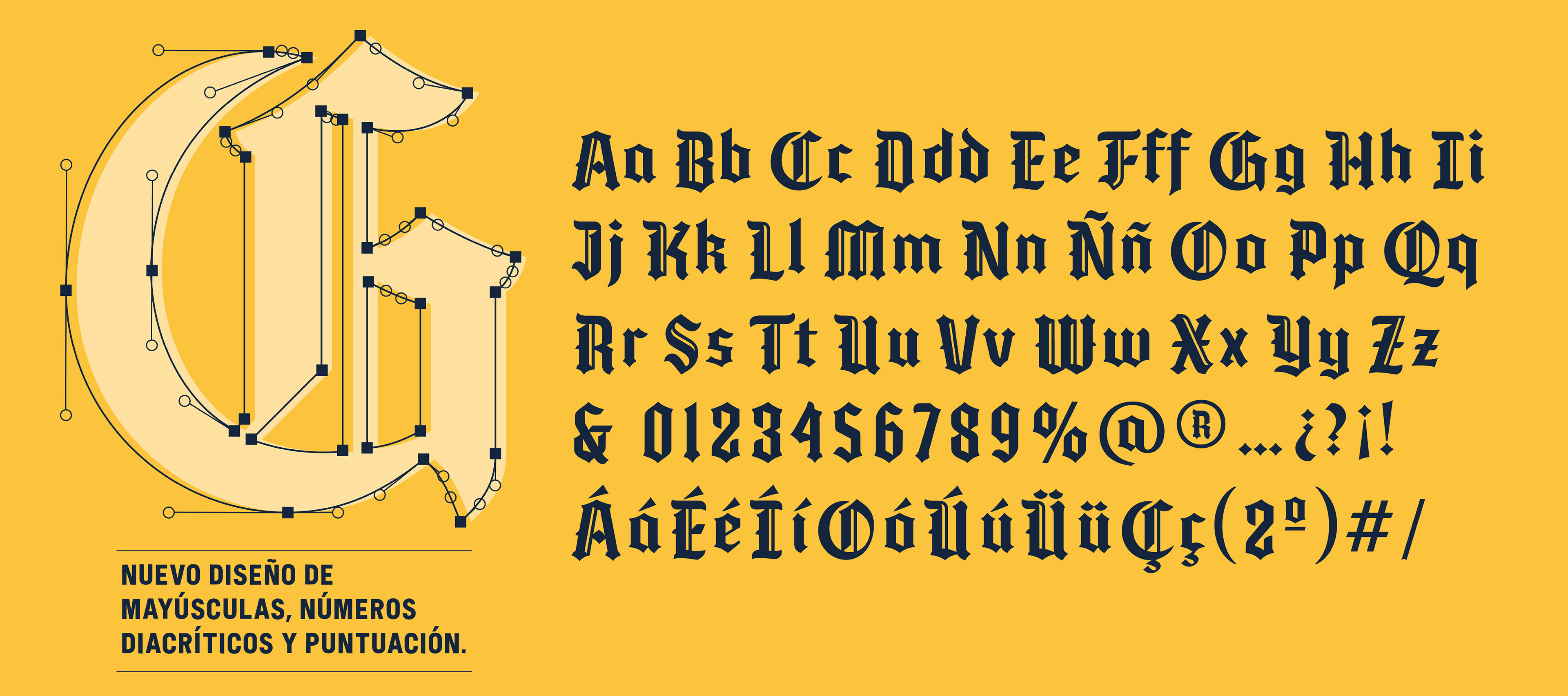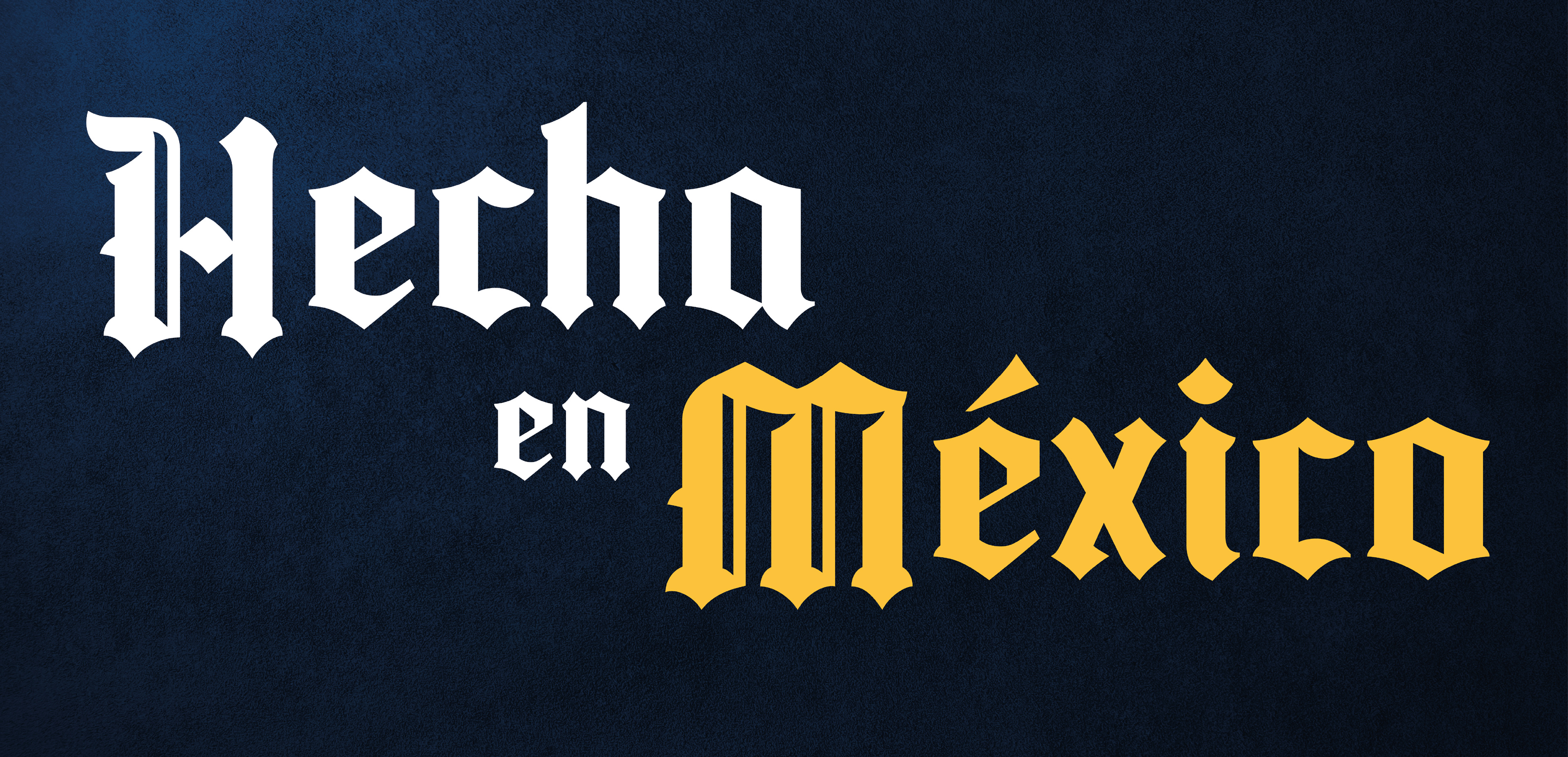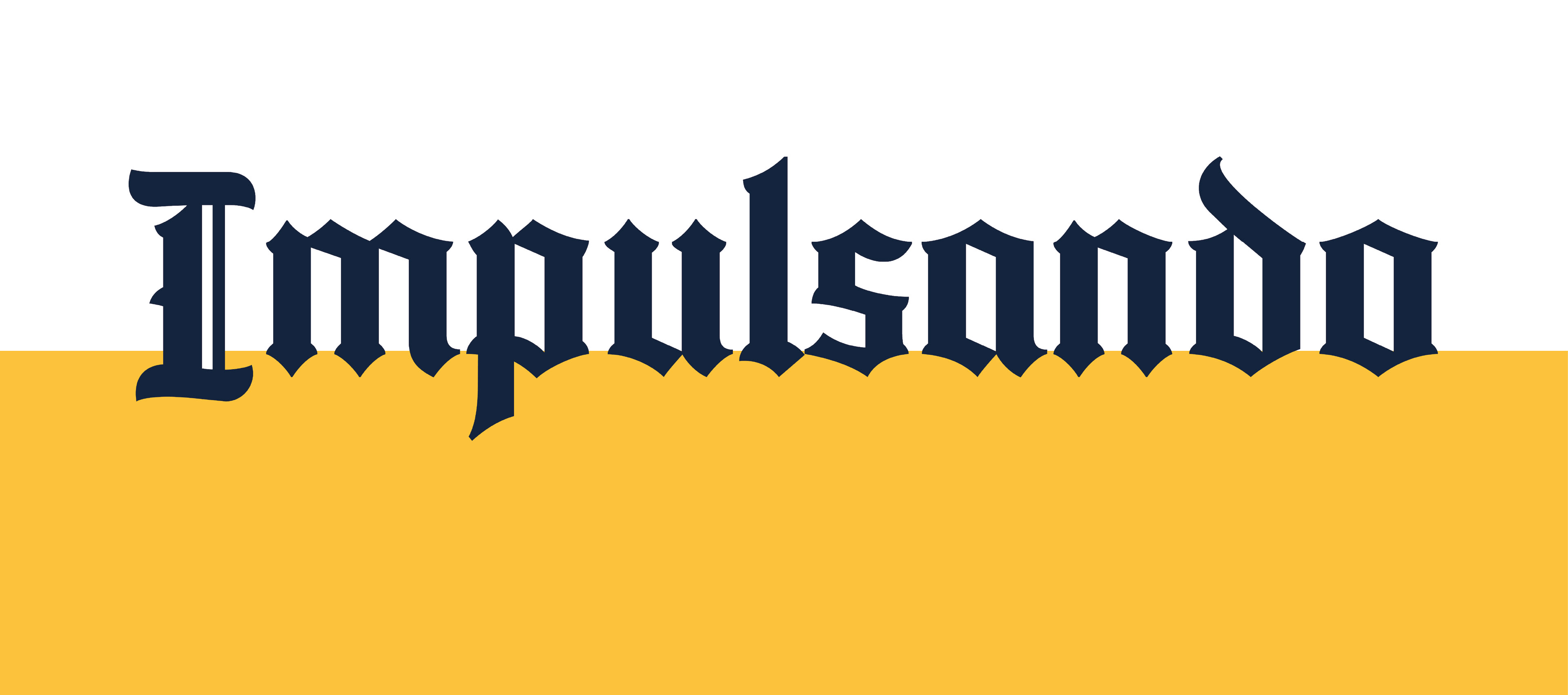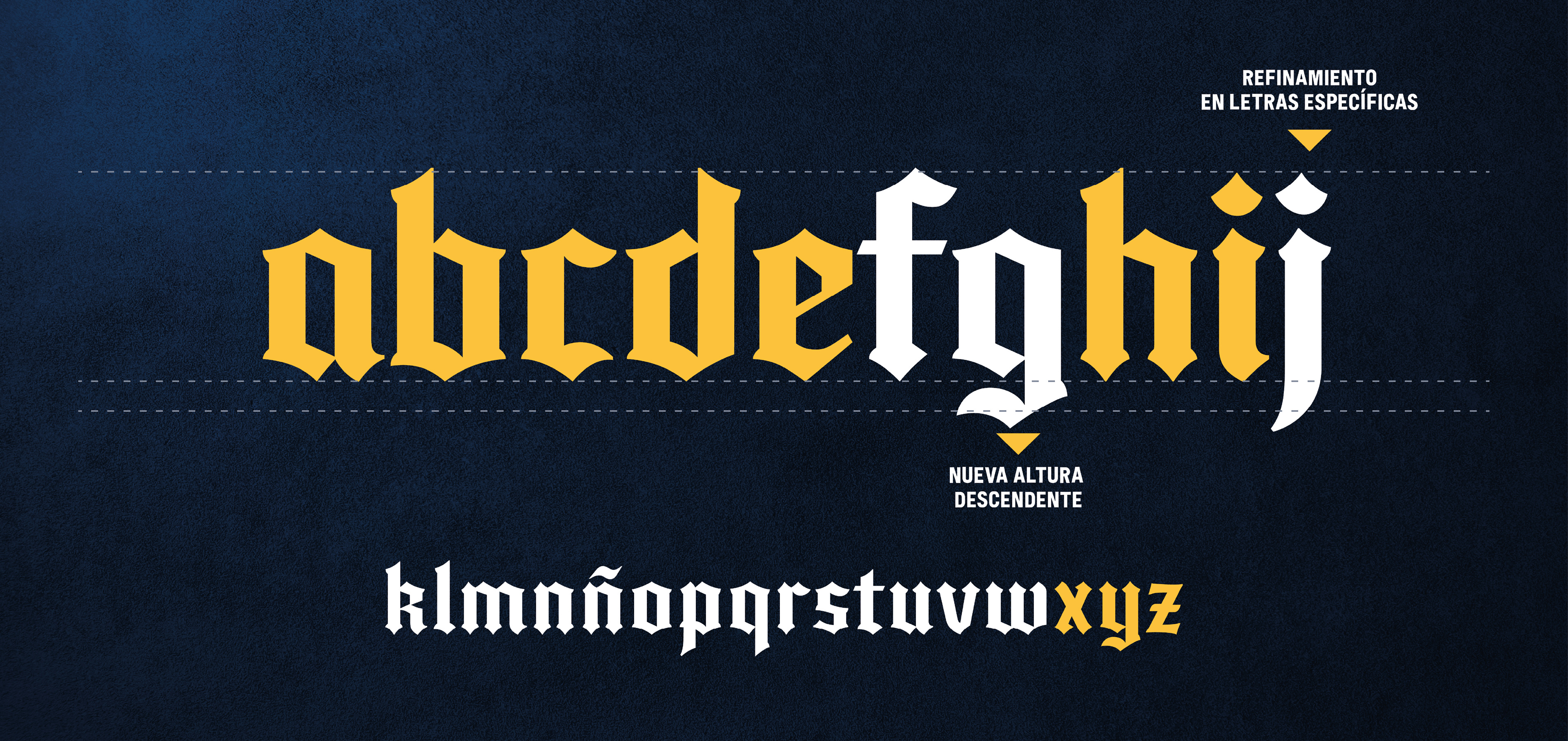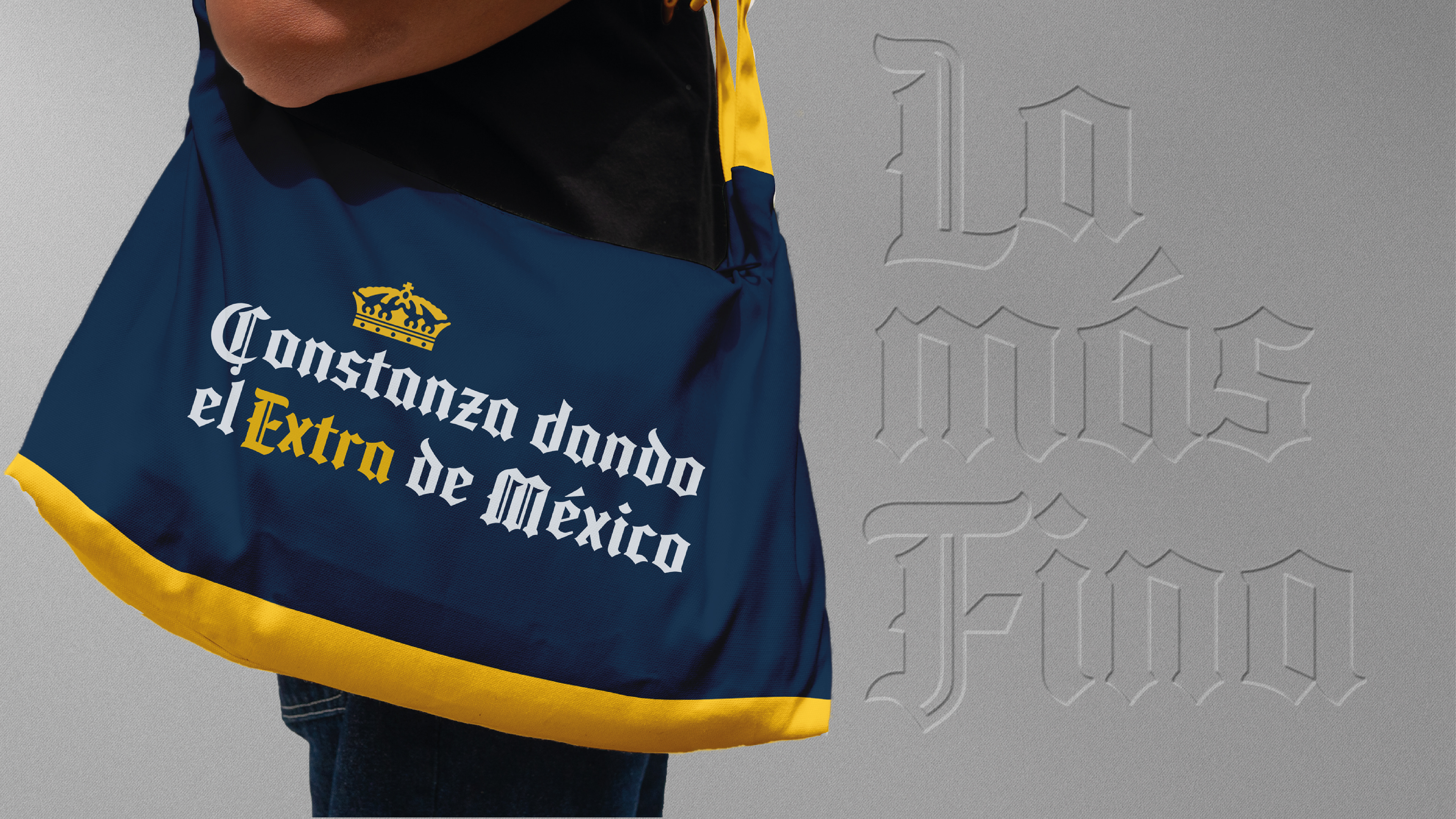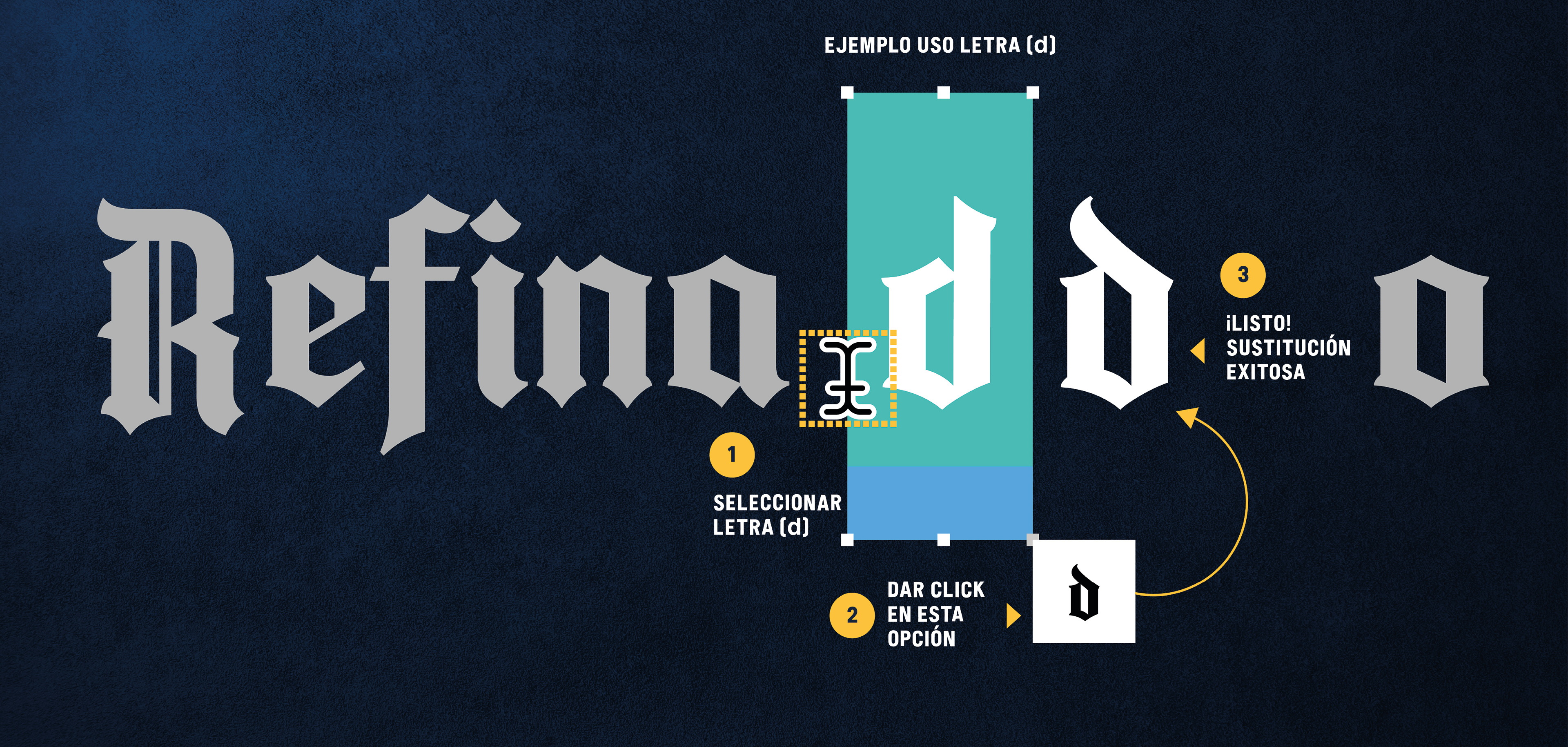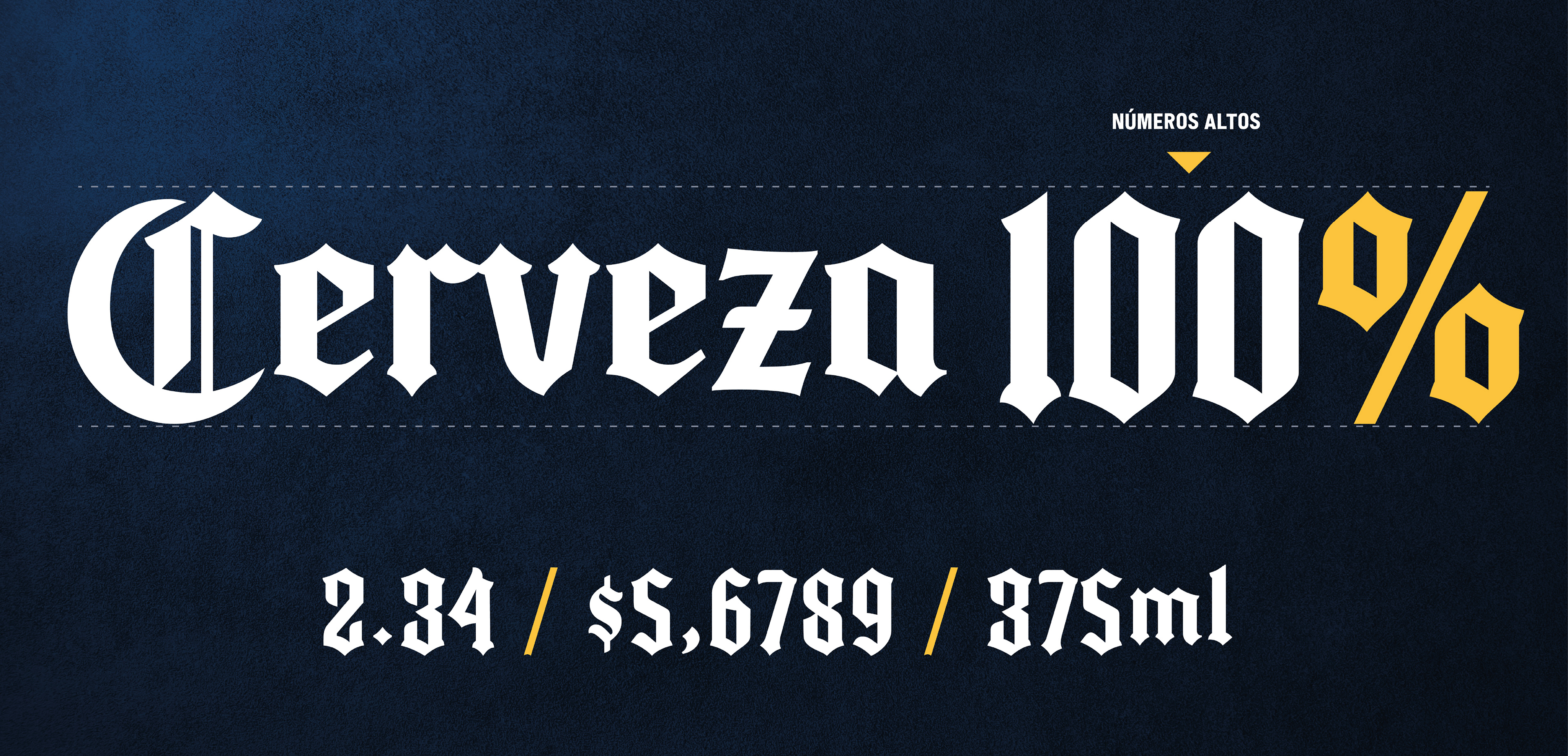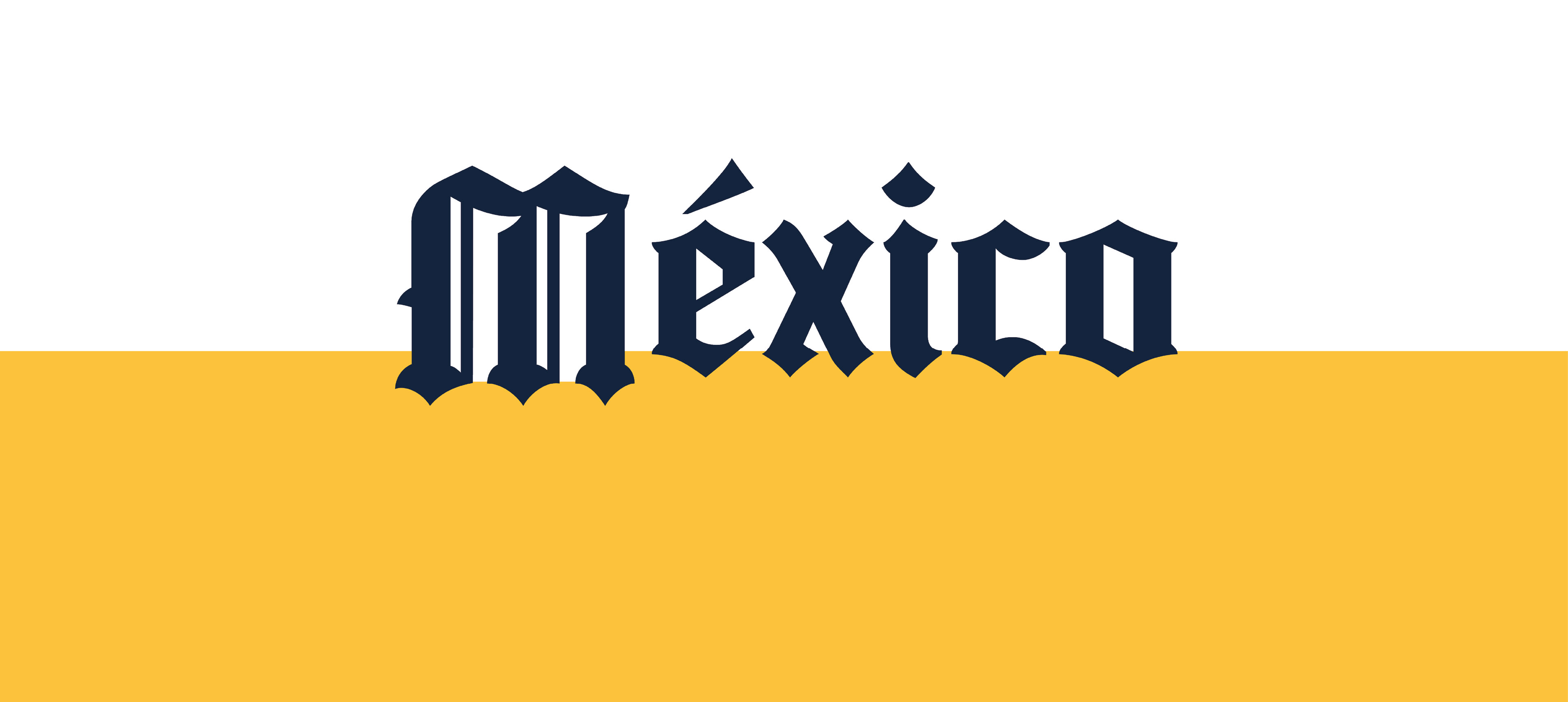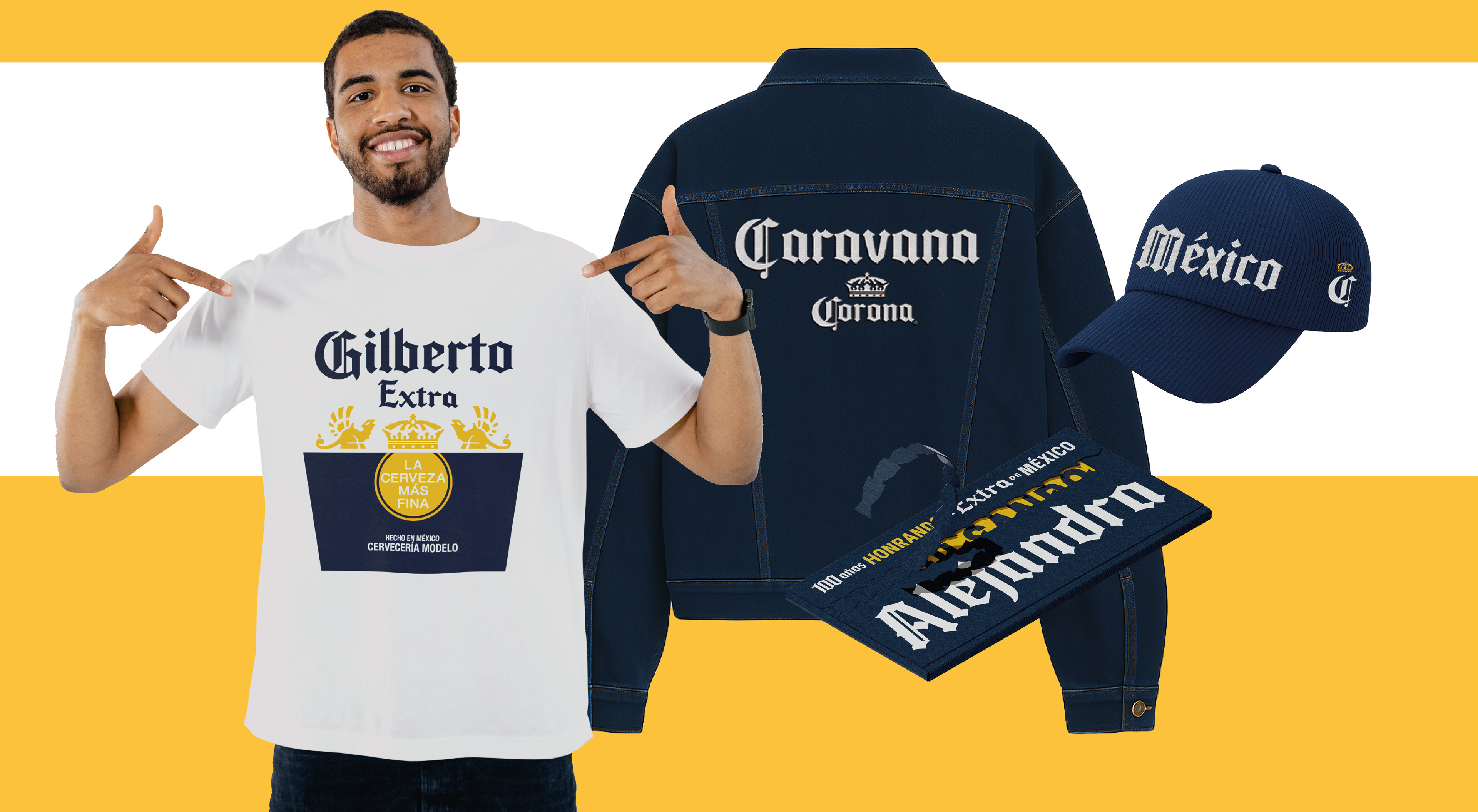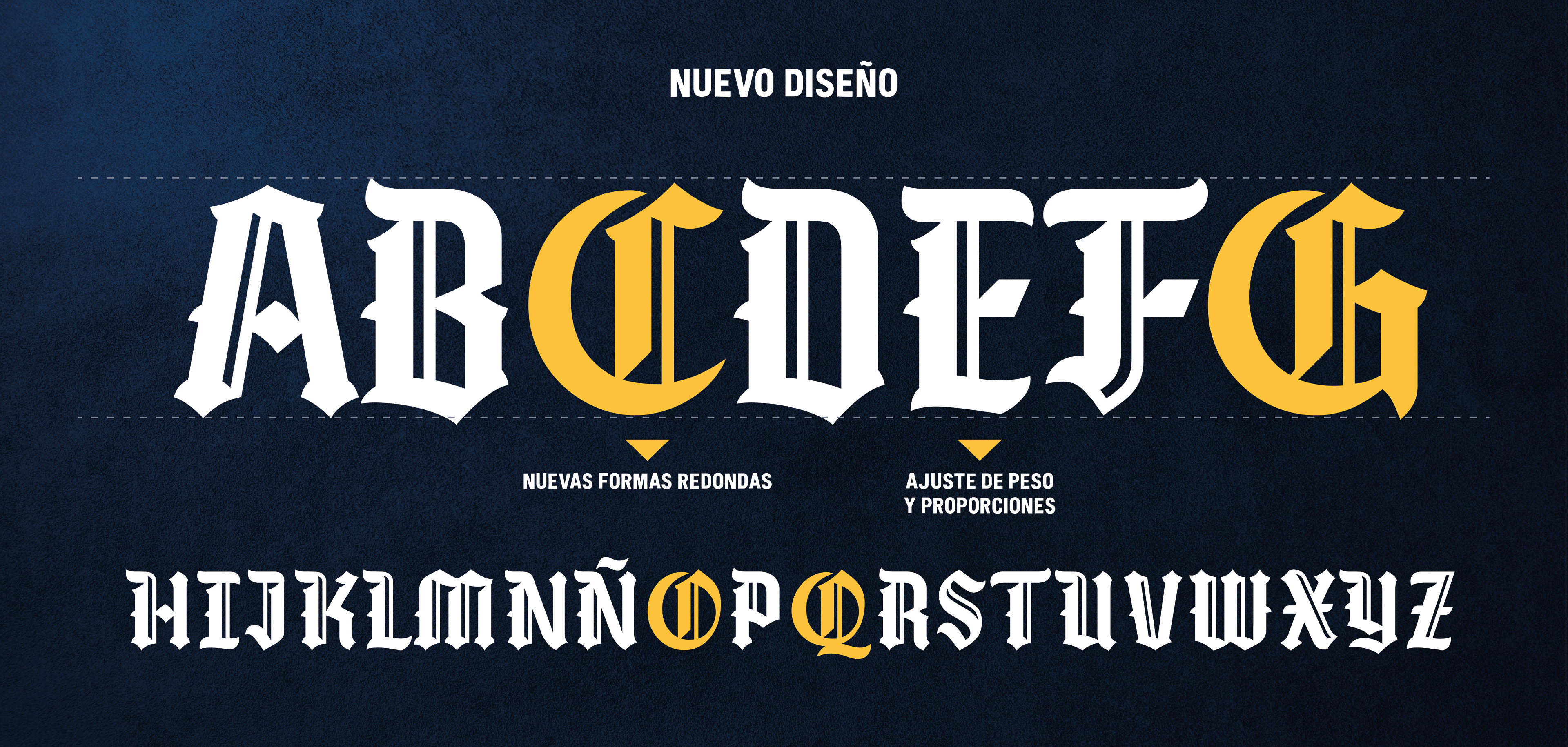
Corona V.2 is a bespoke typeface developed from the brand's logotype. Created to meet the specific needs of its visual identity system, it strengthens brand communication through a distinctive typographic voice. Its custom design brings consistency, flexibility, and added value, reinforcing the brand's recognition and unique personality.